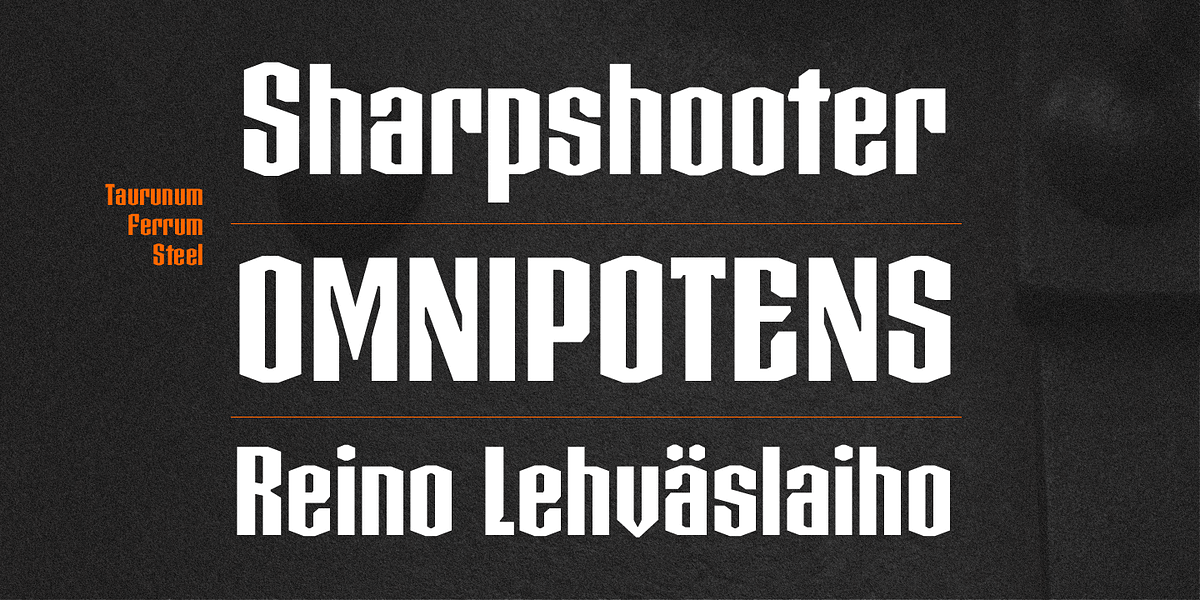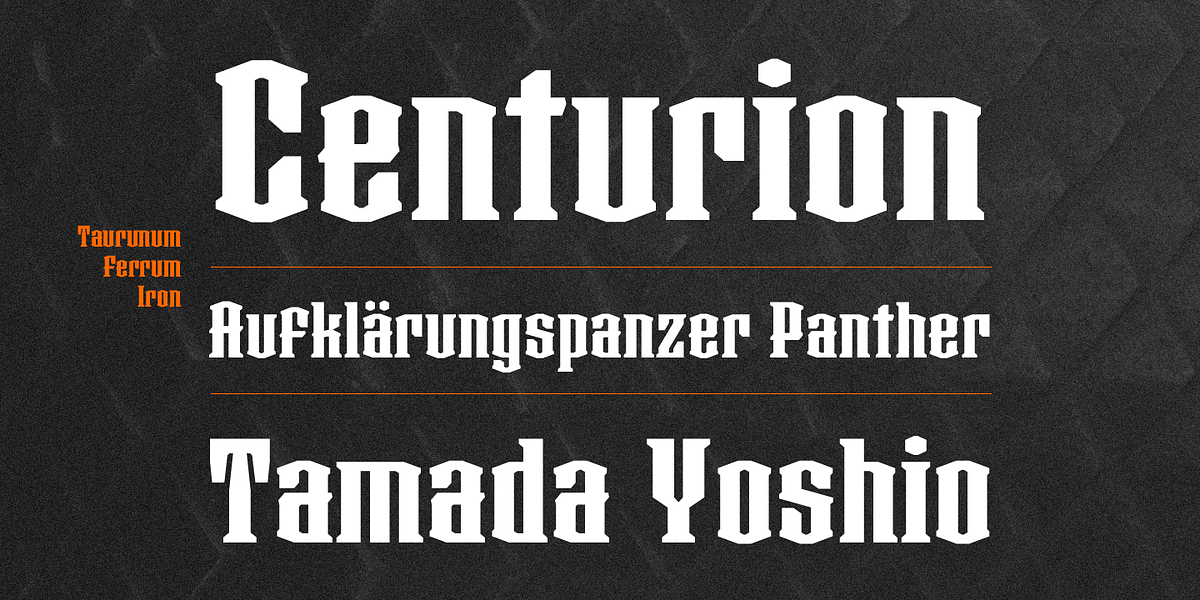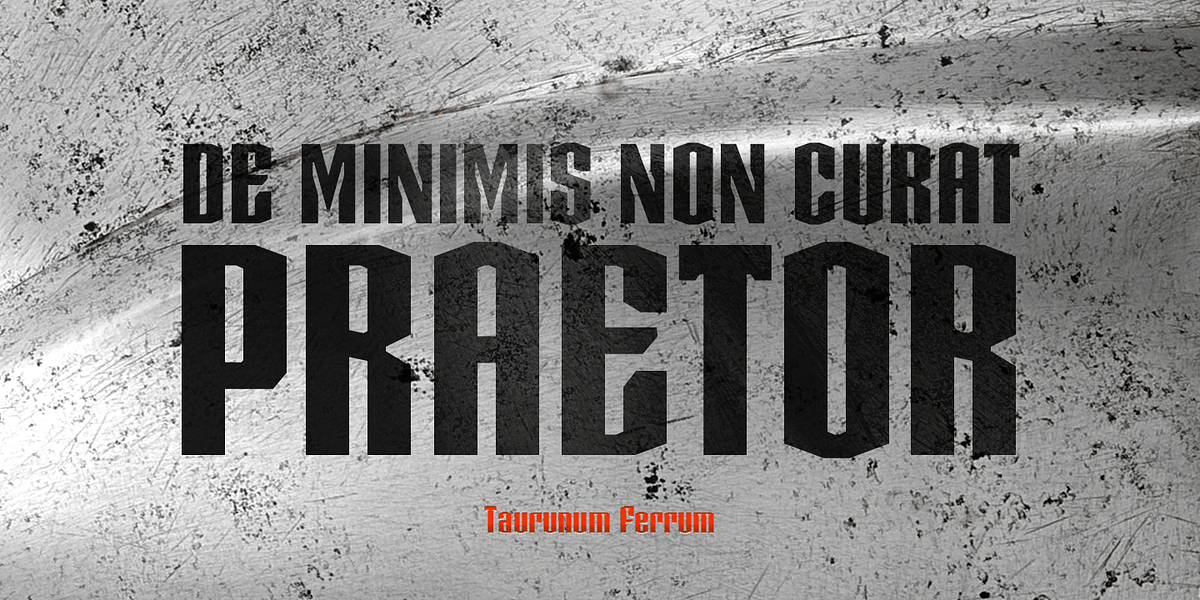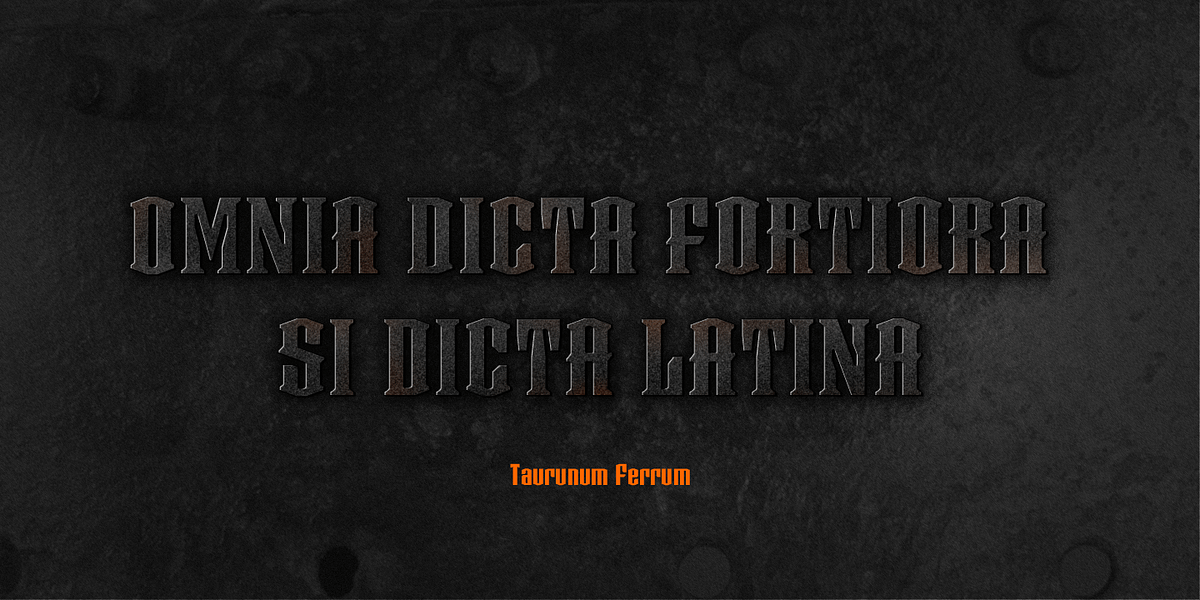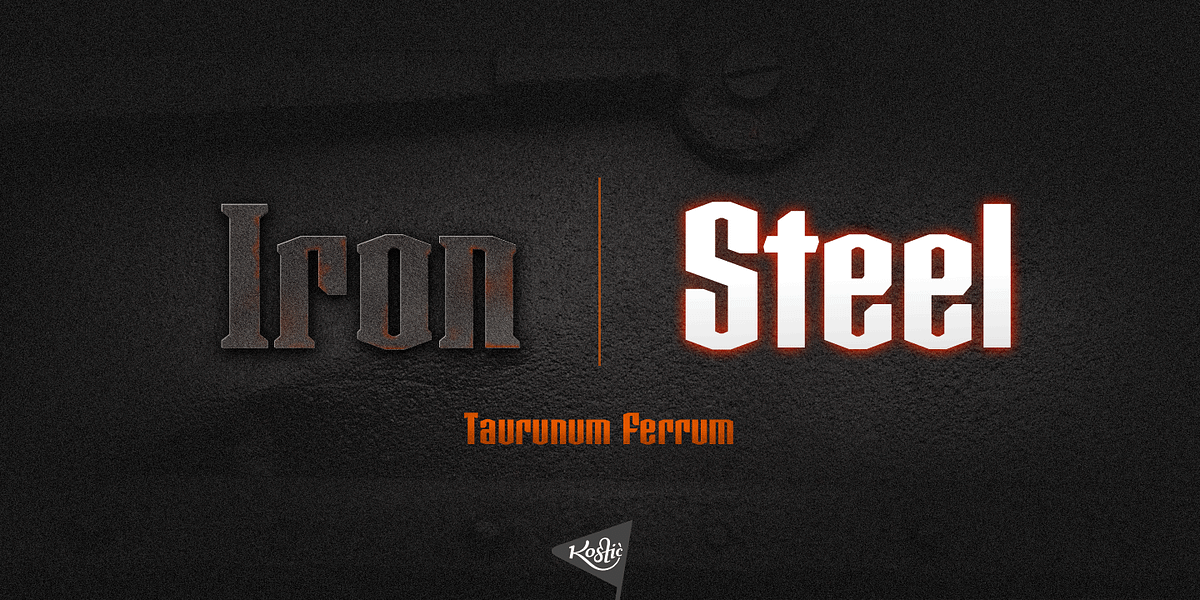
Taurunum Ferrum
Taurunum Ferrum is a display font designed to evoke the look of iron or steel. It comes in two styles: Iron with a medieval blackletter feel and Steel with a more modern sans-serif appearance. The font supports Western and Central European languages.